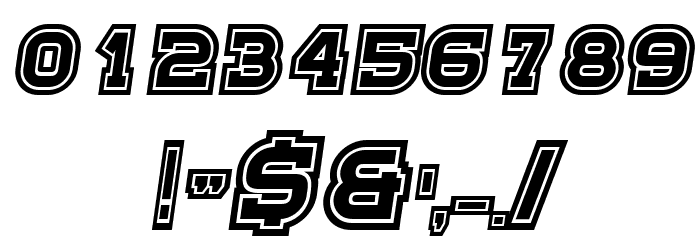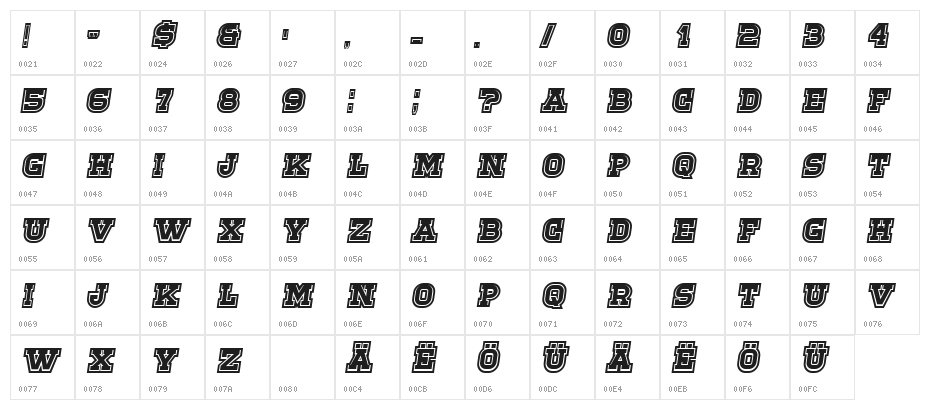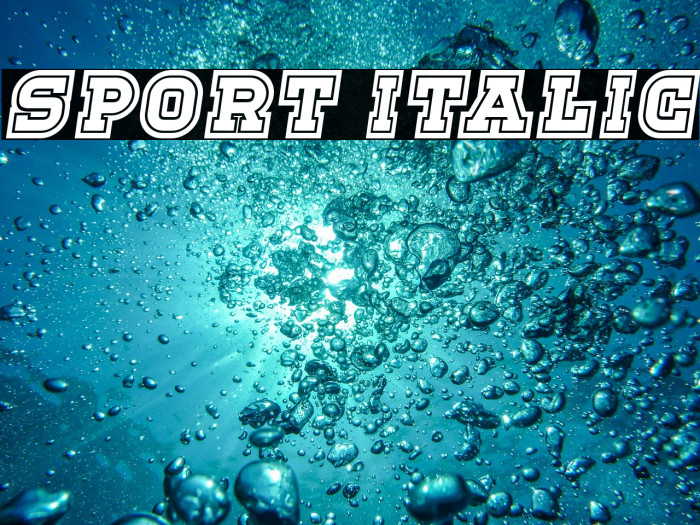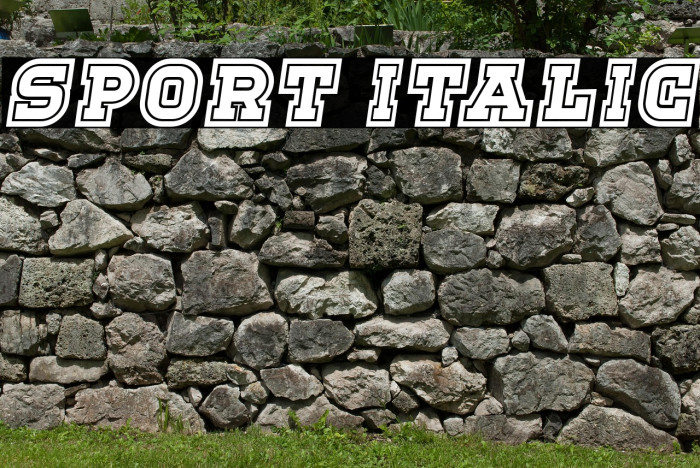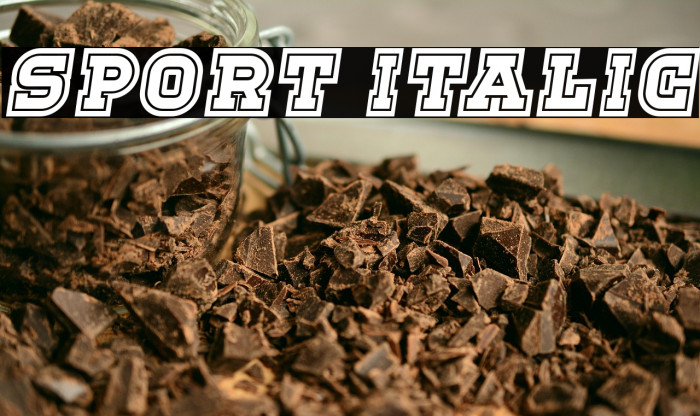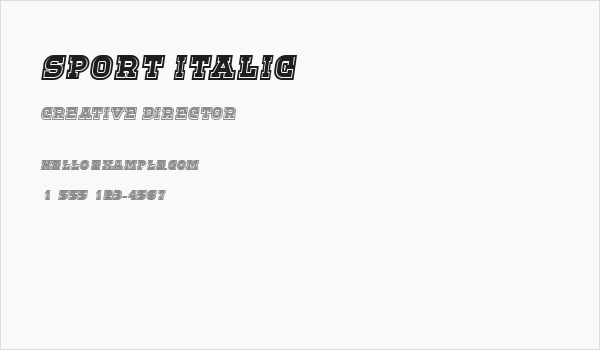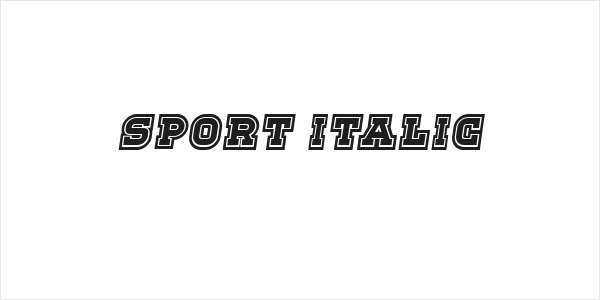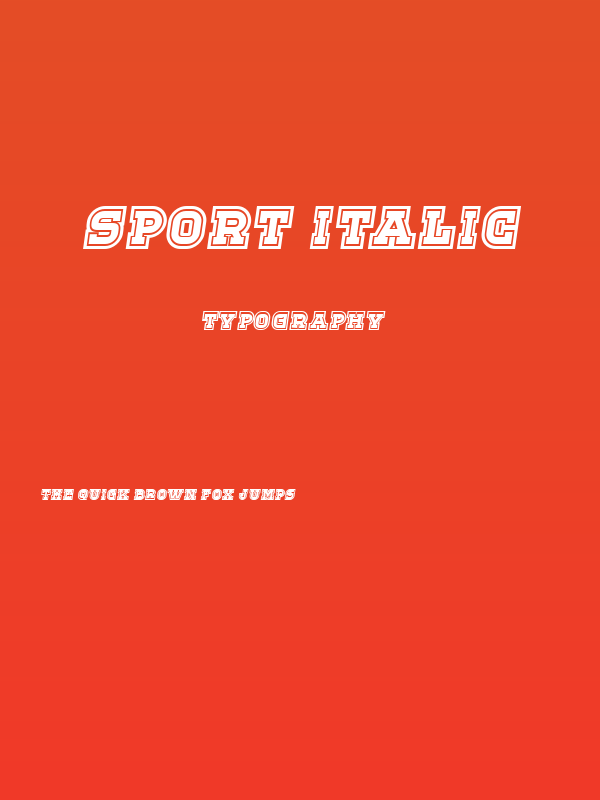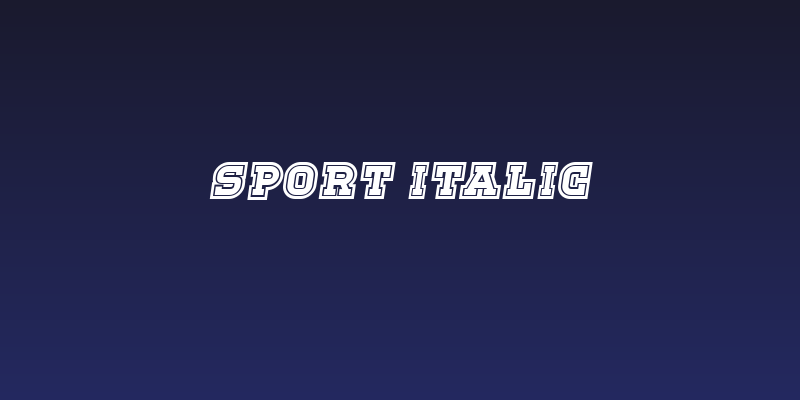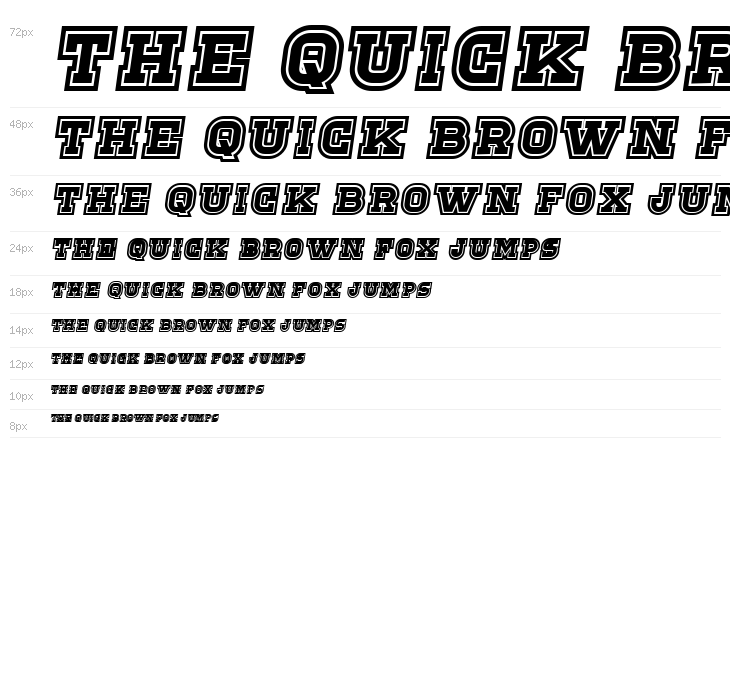
Sport Italic Font
Sport Italic Description
This font features a bold and dynamic style with a strong emphasis on athletic and sporty aesthetics. The letters are outlined with a double-layered effect, giving them a three-dimensional appearance. The italicized slant adds a sense of motion and speed, making it ideal for sports-related themes. The uppercase and lowercase letters maintain a consistent width, while the numbers and special characters follow the same bold and outlined design. The overall look is both energetic and impactful, suitable for creating eye-catching headlines or logos.
| Overall Style | Sporty, Dynamic, Energetic |
| Use Case | Headlines, Logos, Sports Branding |
| Proposed Projects | Ideal for sports team logos, athletic event posters, merchandise branding, and dynamic headlines. |